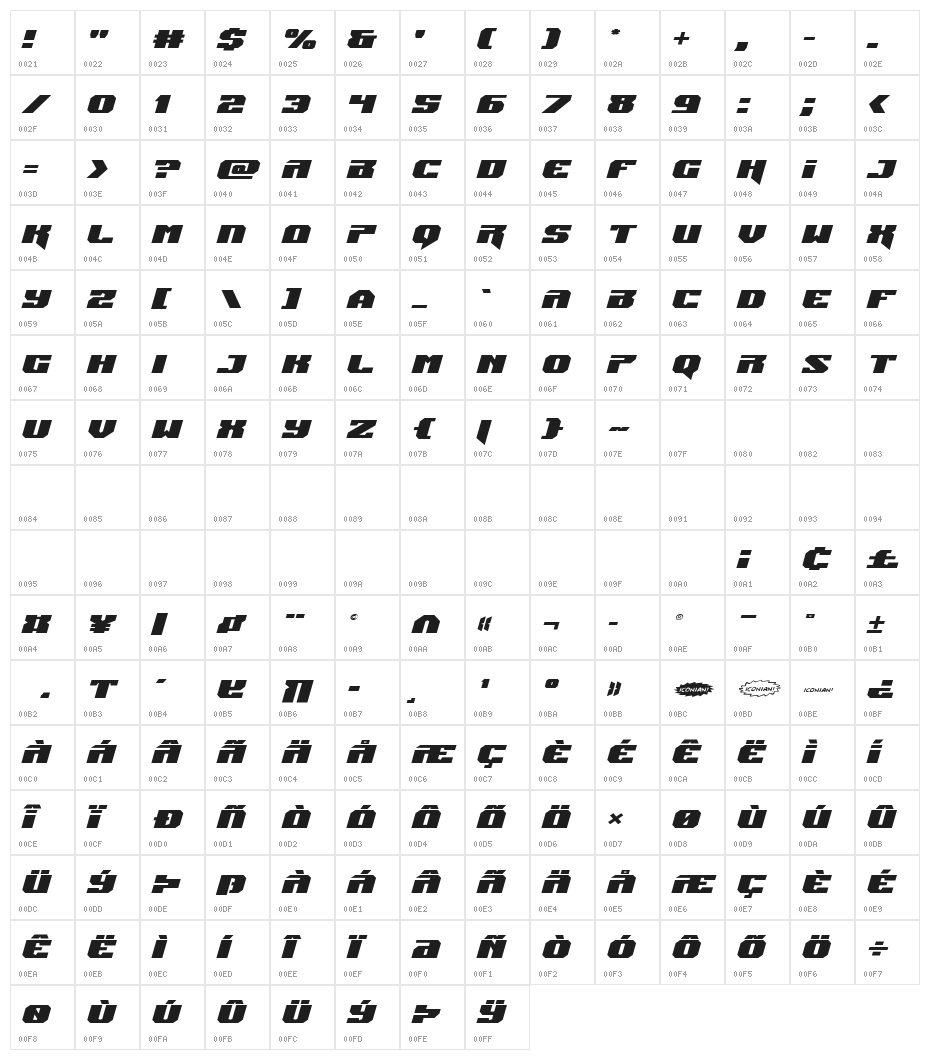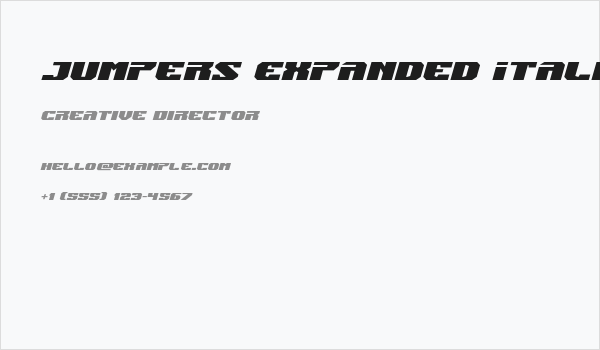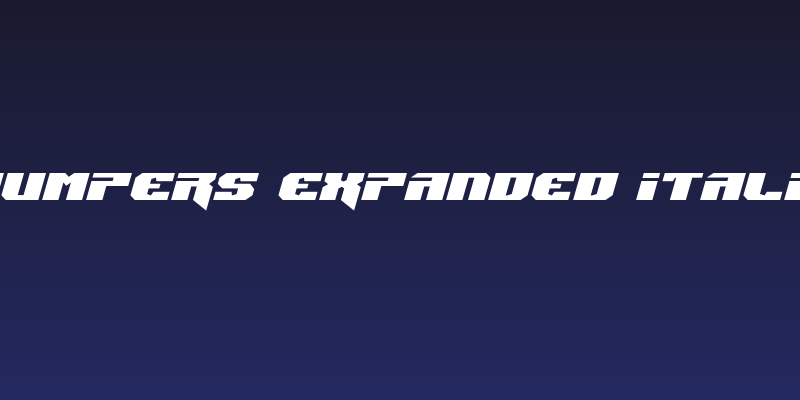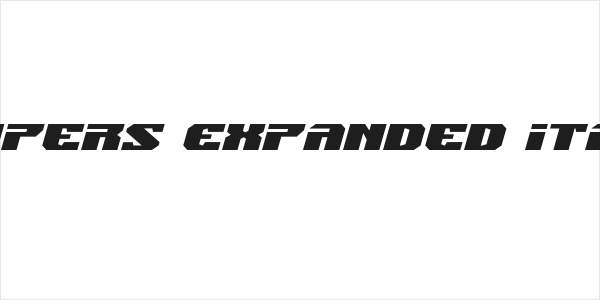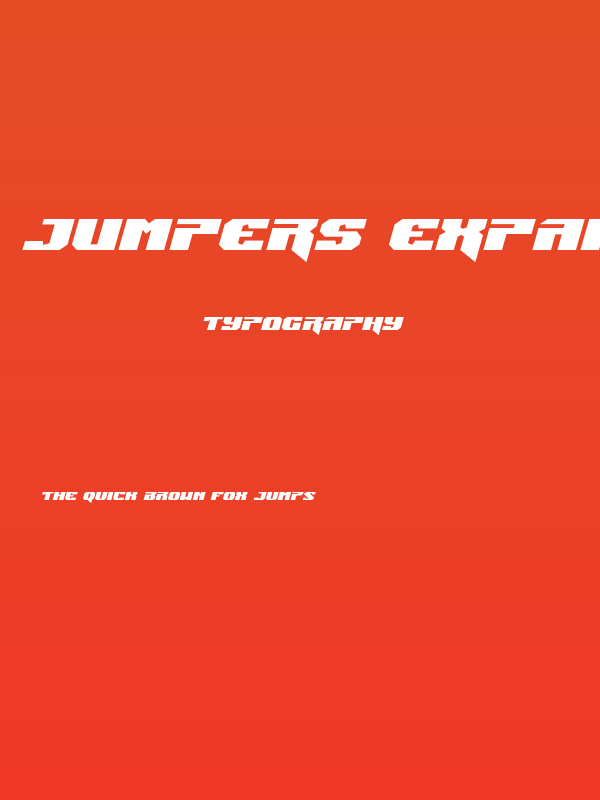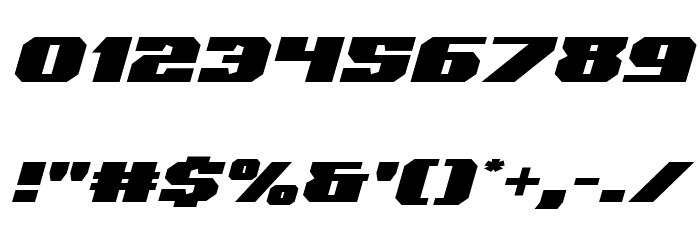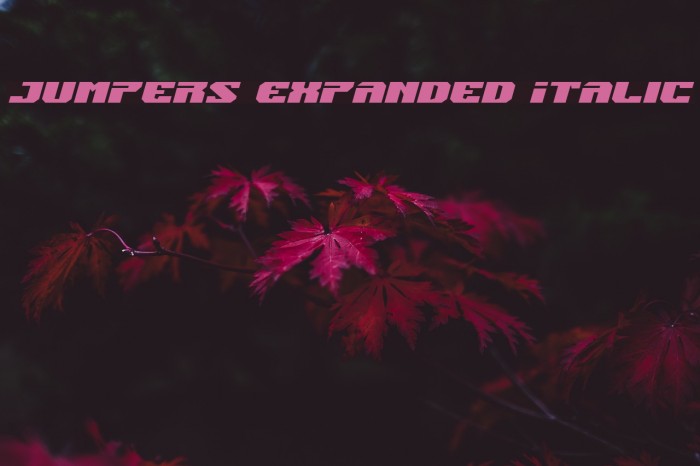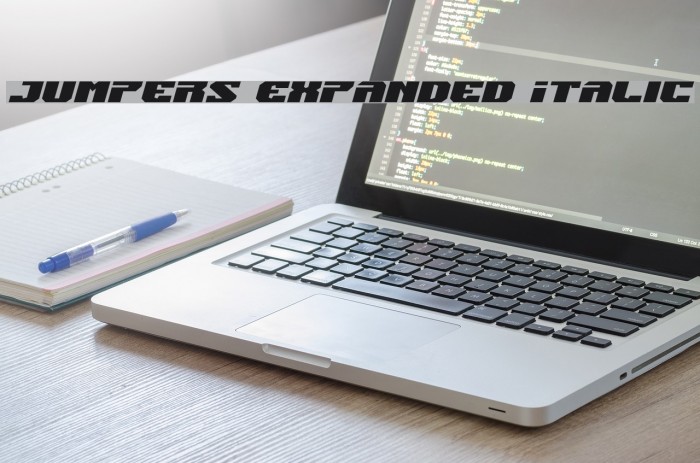
Jumpers Expanded Italic Font
Jumpers Expanded Italic Description
This font features a bold and dynamic design with sharp, angular edges and a distinct italic slant. The characters are wide and expanded, giving a sense of movement and energy. The uppercase letters are particularly striking, with a futuristic and aggressive style that stands out. The numbers and special characters maintain this bold aesthetic, ensuring consistency across all glyphs. The overall appearance is modern and eye-catching, suitable for projects that require a strong visual impact.
| Proposed Projects | Ideal for sports branding, video game titles, and dynamic posters. |